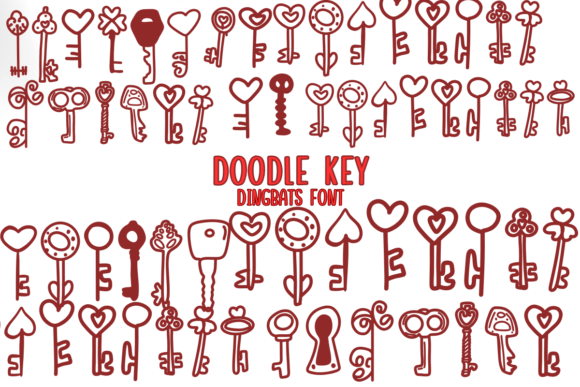
Unlock Your Creativity with Doodle Key Font
Have you ever stared at a blank page, trying to think of the perfect way to express your creativity? For many designers, that moment is a familiar feeling. But what if you could add a touch of whimsy to your projects and make that blank page come alive? Enter the Doodle Key Font, a fun dingbats font featuring various shapes of keys.
With Doodle Key Font, you can add a unique flair to your designs, whether you’re creating invitations, posters, or anything in between. Its playful assortment of key shapes is perfect for designers looking to add a little extra personality to their work. By incorporating the Doodle Key Font into your projects, you can unlock new possibilities and take your designs to the next level.
- Unique Characteristics: Doodle Key Font features a unique, hand-drawn design with subtle imperfections, giving it a charming and organic feel.
Doodle Key Font Review
Overall, I found the Doodle Key Font to be a charming addition to any design project. It’s a fun, playful font that can add a lot of character to your work. ✨ The varying line widths and irregular shapes give it a unique, hand-drawn feel that’s perfect for creative projects.
One of the things I love about the Doodle Key Font is its flexibility. It’s available in a range of styles, from casual to formal, making it suitable for everything from children’s book illustrations to business reports. ✨ The font also includes a range of swashes and flourishes that can add an extra layer of personality to your design.
- ⚠️ Limited legibility at smaller font sizes – the font can become difficult to read if it’s not used at a large enough size.
- ⚠️ Not suitable for formal or professional projects where a more traditional font is required.
Overall, the Doodle Key Font is a great choice for designers who want to add a bit of whimsy and personality to their work. It’s perfect for creative projects, but may not be the best choice for formal or professional designs.
The Doodle Key Font is ideal for:
- DIY crafts and handmade products
- Artistic and creative projects